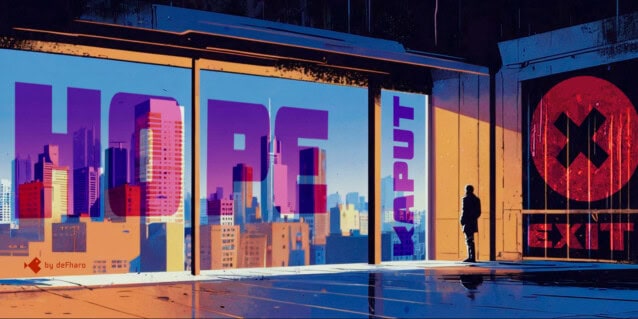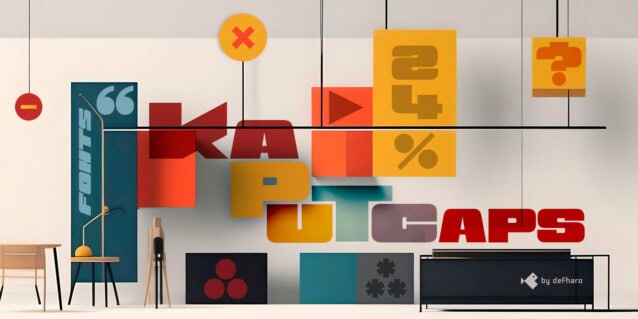
Kaput Black Typeface is a unique, heavy uppercase typeface, is here to create great titles and high-impact visual communication.
Kaput Black is designed with a perfect balance between strength and sophistication, it is bold, semi-expanded and spectacularly legible, the thick lines and horns with marked contrasts, which not only catch the eye, but also provide real harmony, thanks to the meticulous work of metrics and kerning.
Available in Regular and Italic versions with a 20-degree tilt that adds dynamism, modernity and technology.